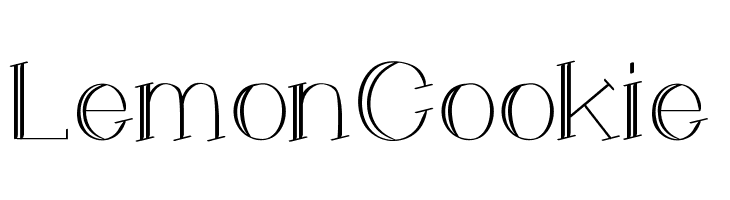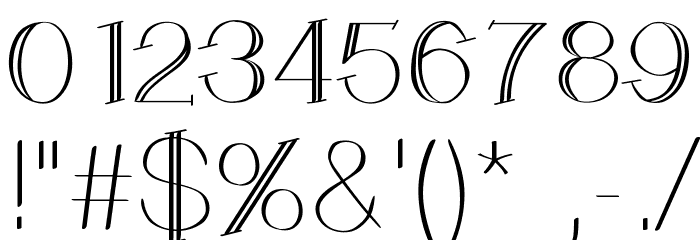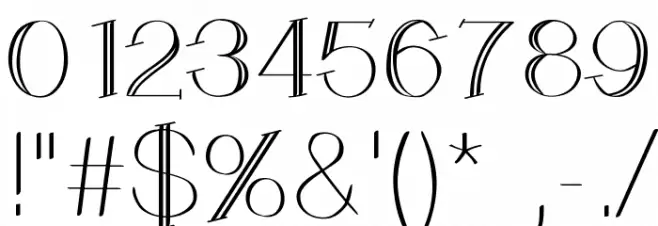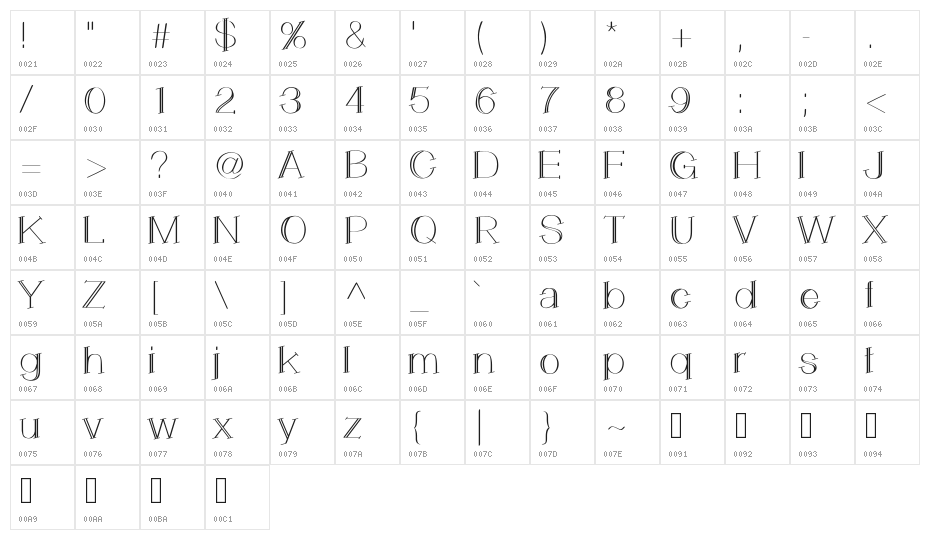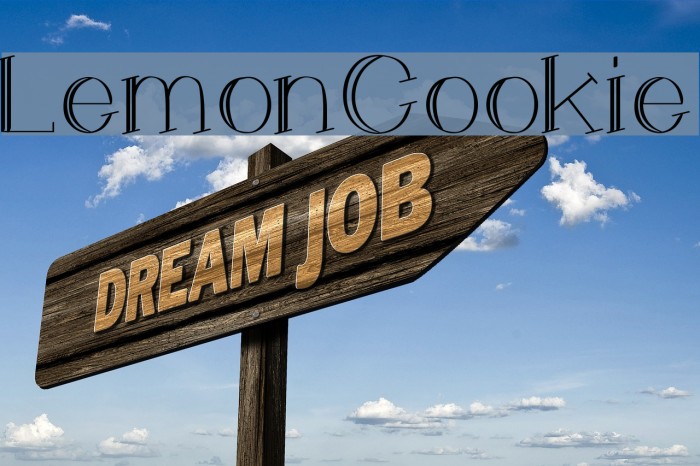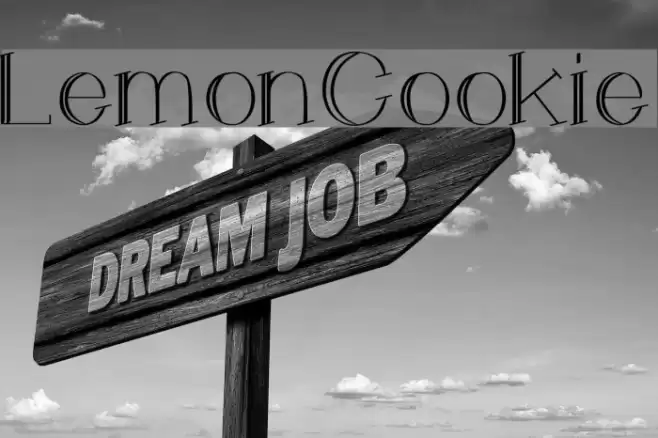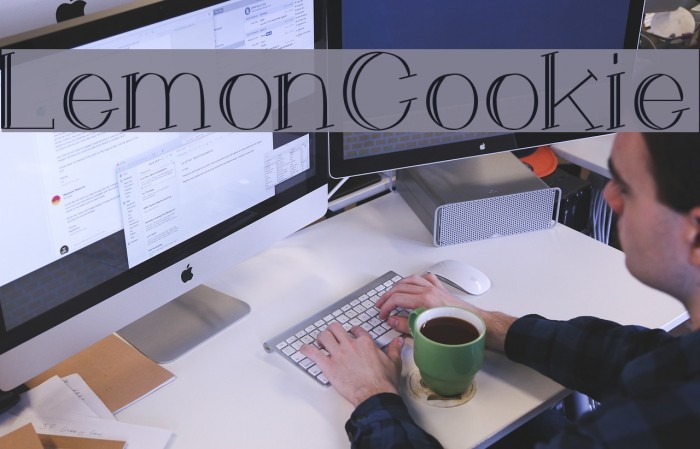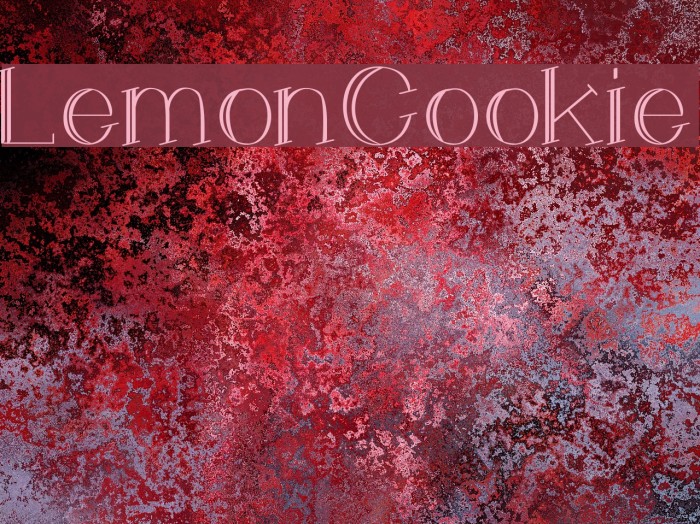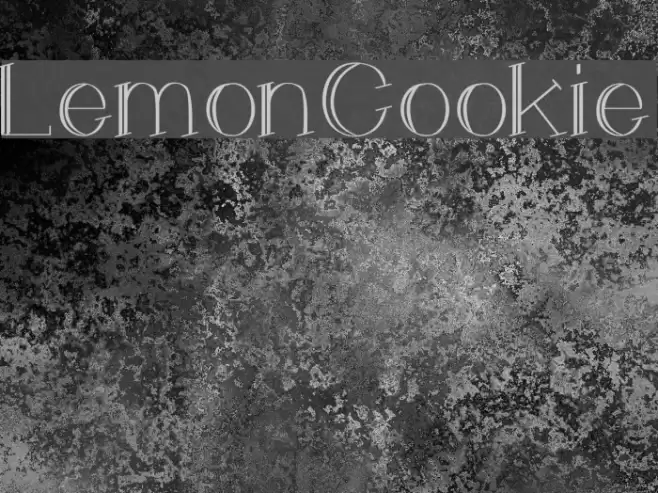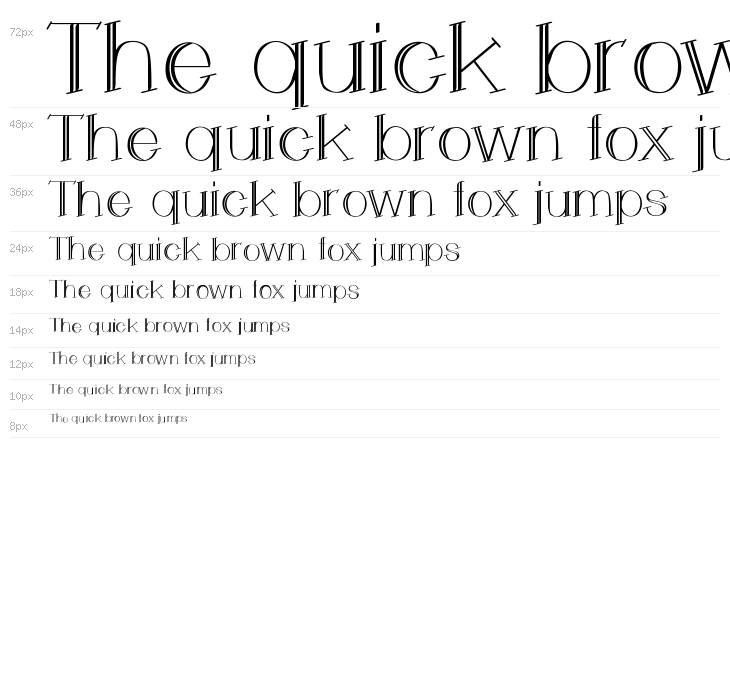
LemonCookie Font
LemonCookie Description
This font features a unique and playful design with a distinct modern flair. The characters are tall and slender, with a slight curvature that adds a whimsical touch. The uppercase letters are particularly striking, with sharp angles and clean lines that create a sense of elegance and sophistication. The lowercase letters maintain a consistent style, offering a harmonious blend of curves and straight edges. Numbers and special characters are crafted with the same attention to detail, ensuring a cohesive look across all text. The font's thin strokes and high contrast between thick and thin lines make it stand out, while the overall design remains legible and versatile.
| Overall Style | Modern, Playful |
| Proposed Projects | Ideal for branding, packaging design, invitations, and editorial layouts where a touch of elegance and playfulness is desired. |